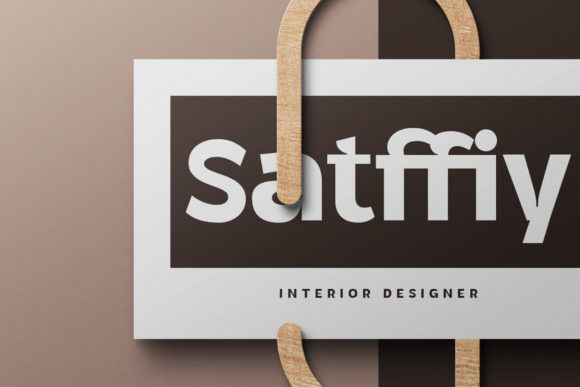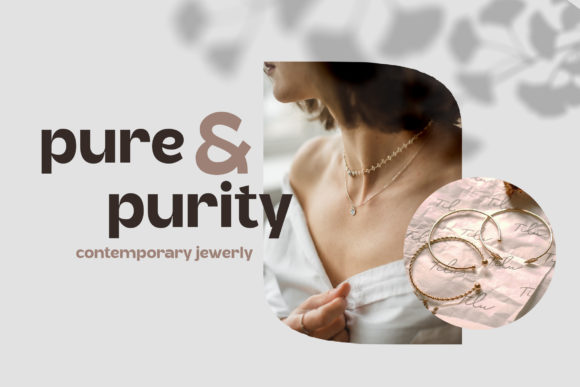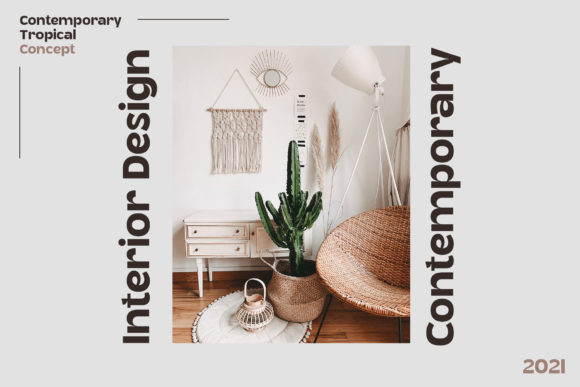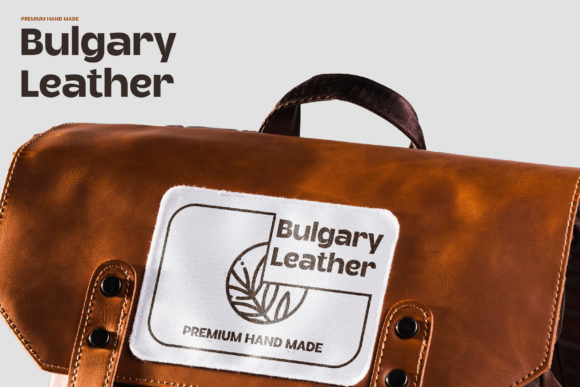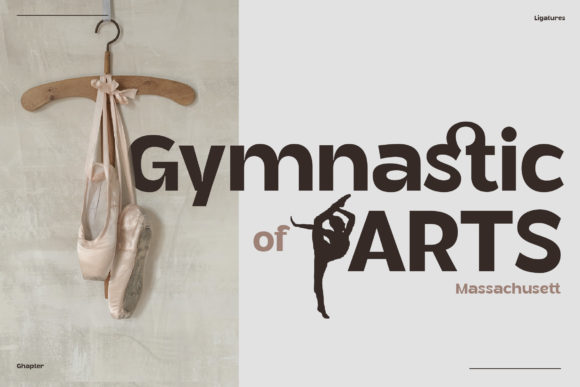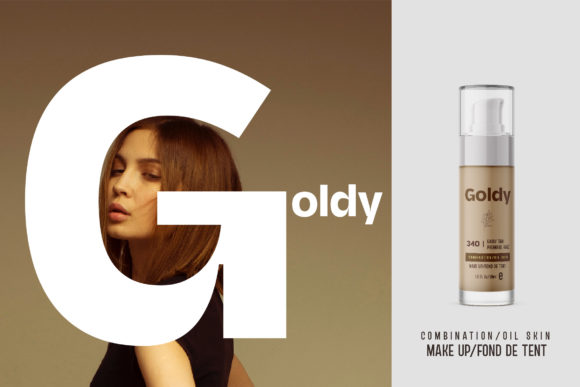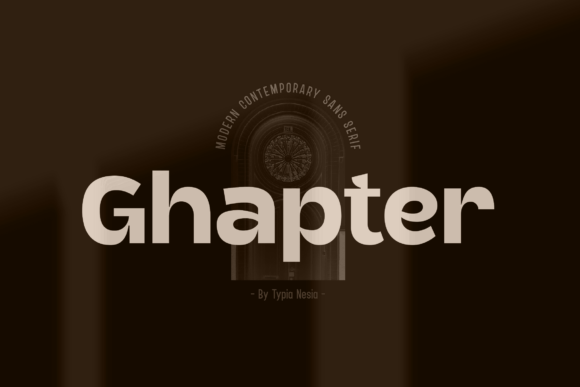
Ghapter Font: Elevate Your Designs with a Classy, Elegant, and Modern Sans Serif
Are you on the hunt for a font that exudes sophistication, elegance, and a touch of modernity? Look no further than the Ghapter Font. This bold yet distinct sans serif font is perfect for designers and crafters looking to elevate their designs and make a lasting impression. In this article, we’ll dive into the world of Ghapter Font, exploring its features, uses, and benefits.
What is Ghapter Font?
Ghapter Font is a sans serif font that boasts a unique and recognizable style. Its bold yet elegant design makes it perfect for a wide range of applications, from logos and branding to invitations, stationery, and wedding designs. The font’s clean lines, precise curves, and balanced proportions create a sense of harmony and sophistication, making it a versatile choice for designers.
Key Features of Ghapter Font
- Bold yet distinct: Ghapter Font’s bold design ensures that your text stands out, while its unique features prevent it from feeling too heavy or overpowering.
- Classy, elegant, and modern: The font’s elegant curves and clean lines create a sense of sophistication and refinement, perfect for high-end designs.
- Versatile: Ghapter Font can be used for a wide range of applications, from logos and branding to social media posts and more.
- Easy to read: The font’s clear and precise design ensures that your text is easy to read, even at smaller sizes.
Uses for Ghapter Font
Ghapter Font’s versatility makes it perfect for a wide range of design applications. Here are some ideas to get you started:
- Logos and branding: Create a lasting impression with a bold, elegant logo that showcases your brand’s personality.
- Invitations and stationery: Add a touch of sophistication to your invitations, business cards, and letterheads.
- Wedding designs: Make your wedding designs truly unforgettable with Ghapter Font’s elegant and refined style.
- Social media posts: Stand out on social media with bold, eye-catching text that grabs attention.
- Packaging and advertising: Use Ghapter Font to create eye-catching packaging and advertisements that showcase your brand’s personality.
Benefits of Using Ghapter Font
- Unique and recognizable: Ghapter Font’s distinct style ensures that your designs stand out from the crowd.
- High-quality: Ghapter Font is designed to deliver high-quality results, even at smaller sizes.